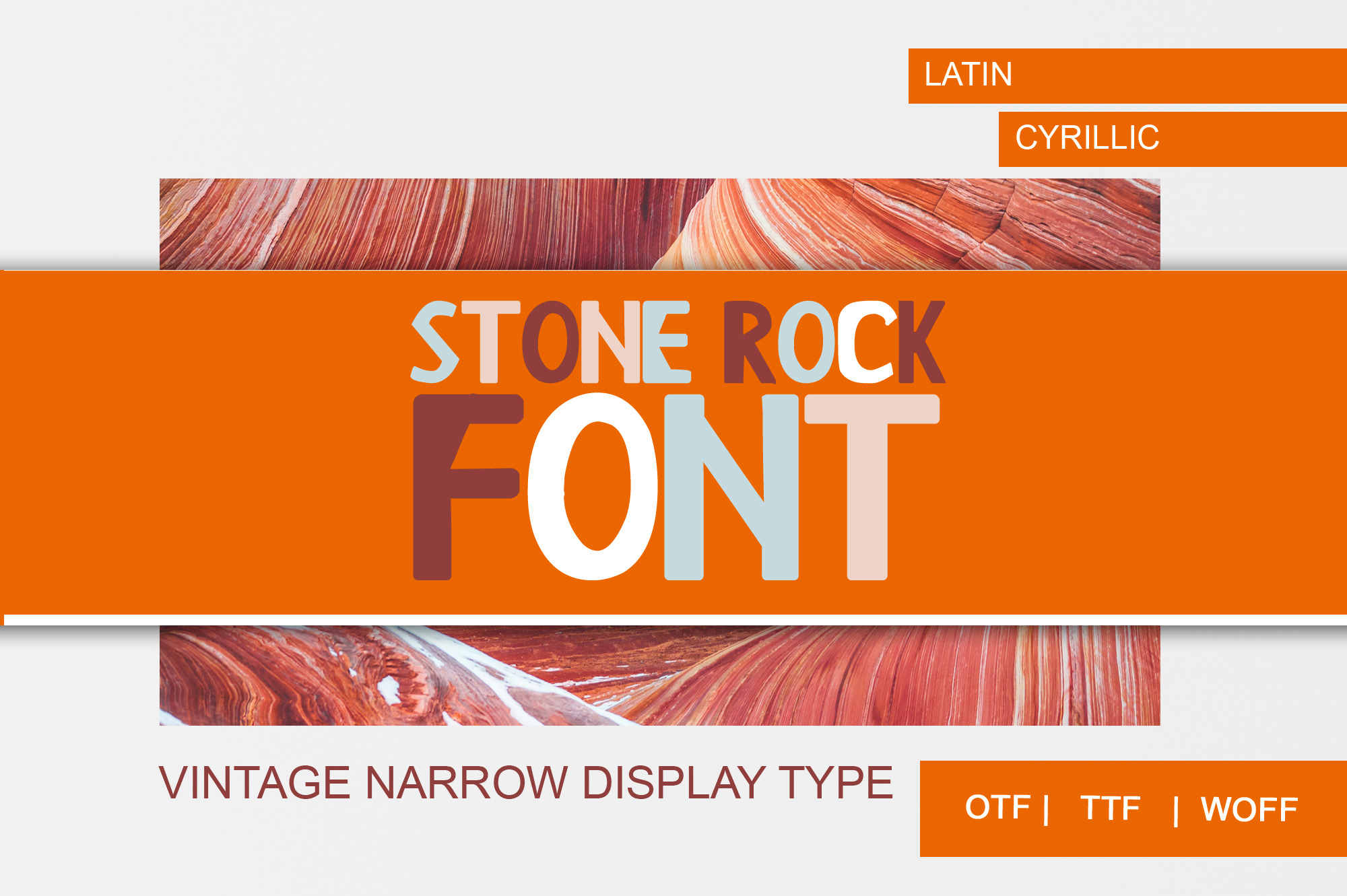
Stone Rock font is a typographic font with Latin and Cyrillic letters. A playful, narrow display font designed in harmony with nature. I was inspired by rocks, so Stone Rock font has a special charm.
The font includes uppercase and lowercase letters, numbers, punctuation marks, so you can style your titles to the fullest. Stone Rock font looks good on headlines, packaging, blogs.
Stone Rock font includes Latin and Cyrillic, so use is available in English, Russian.
Features of Stone Rock font:
- Display;
- Latin and Cyrillic;
- Uppercase and lowercase letter;
- Narrow.
- What are the features of the Stone Rock font?
- Features of Stone Rock font: - Typographic font; - Display; - Latin and Cyrillic; - Narrow; - Uppercase and lowercase letters; - Figures; - Punctuation; - Playful :)
- I want to use English. Is the Latin script available in Stone Rock font?
- Yes. Stone Rock font includes Latin script
- I would like the Cyrillic alphabet. Will Stone Rock font suit me?
- Yes, Stone Rock font will suit you. Stone Rock font includes Cyrillic, so Russian is available to you.
- Is there punctuation in Stone Rock font?
- Yes it is. Stone Rock font includes numbers and punctuation marks. Among them are period, comma, question mark, exclamation mark, equals, colon and others.